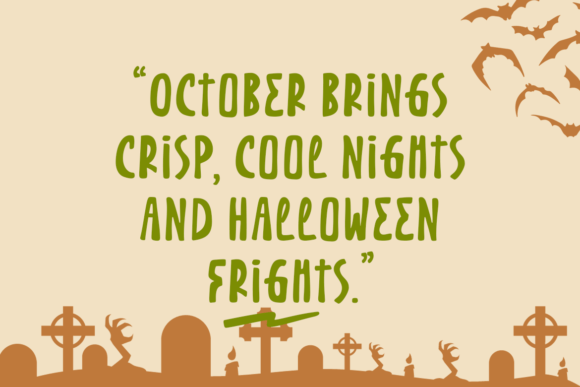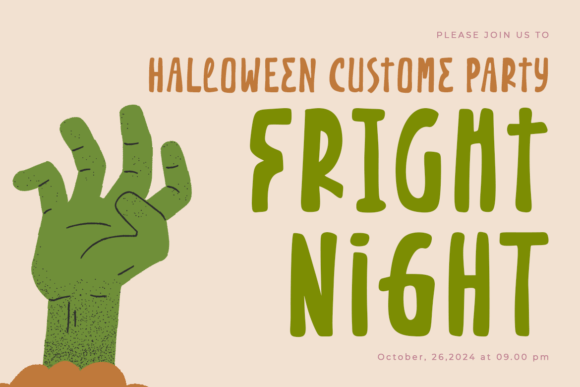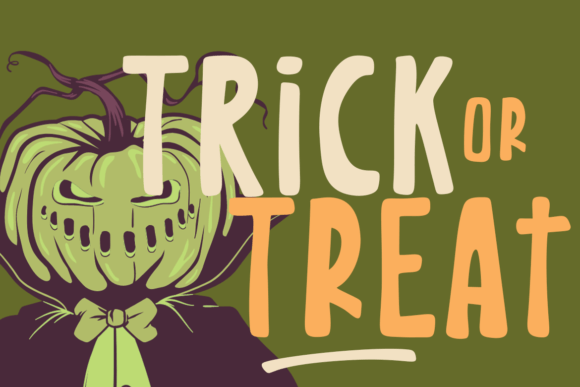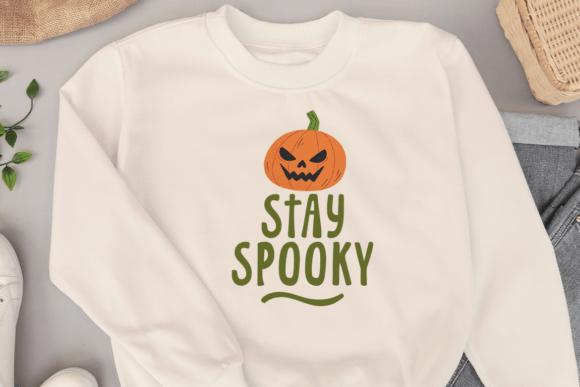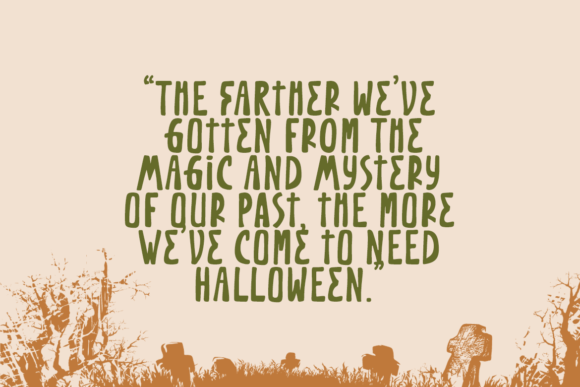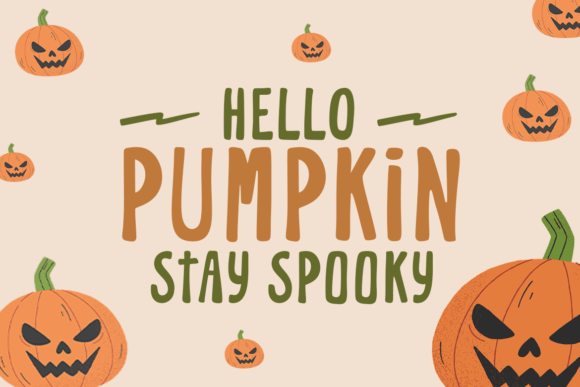
Unleash the Spookiness: Exploring the Afterlife Attack Font
In the realm of typography, there exist fonts that are mere mortals, and then there are those that transcend the ordinary, speaking directly to our souls. The Afterlife Attack font is one such extraordinary creation that embodies the essence of the spooky and unknown, making it a fascinating addition to any designer’s arsenal. In this article, we’ll embark on a journey to unravel the mystique of the Afterlife Attack font, exploring its unique characteristics, and how it can elevate your designs to new heights.
The Essence of Afterlife Attack
Afterlife Attack is an incredibly unique and interesting display font that exudes an aura of mystery and intrigue. Its design is deeply rooted in the themes of the afterlife, evoking a sense of eeriness and otherworldliness. Each letterform is carefully crafted to transport you to a realm beyond the mortal coil, making it perfect for projects that require a touch of the macabre or supernatural.
What Makes Afterlife Attack Stand Out?
- Unique Letterforms: The font boasts letterforms that are not just characters but pieces of art. Each one is designed to contribute to the overall spooky and somewhat creepy aesthetic, ensuring your designs stand out in a crowd.
- Versatility: Despite its niche theme, the Afterlife Attack font is surprisingly versatile. It can be used for a wide range of projects, from Halloween-themed decorations and party invitations to more permanent applications like tattoos and apparel.
- Legibility: One of the remarkable features of the Afterlife Attack font is its legibility, even in larger sizes. This makes it an excellent choice for headlines, posters, and any design where impact and readability are key.
Applications of Afterlife Attack
The Afterlife Attack font is not just limited to Halloween or horror-themed projects. Its distinctive style can be applied to various creative endeavors, including:
- Graphic Design: Use it for brochures, posters, and flyers that need a unique touch.
- Digital Art: Add a layer of complexity and intrigue to your digital artworks.
- Fashion Design: Incorporate it into your textile designs for clothing and accessories.
- Crafting: Perfect for scrapbooking, card making, and other paper crafts.
Tips for Using Afterlife Attack
To make the most out of the Afterlife Attack font, consider the following tips:
- Pair it with Simplicity: Balance the complexity of the font with simpler elements to avoid overwhelming the viewer.
- Experiment with Colors: While the font itself is quite bold, playing with different colors can enhance its effect.
- Consider the Context: Ensure that the use of the font aligns with the message or theme of your project.
| Font Name | Afterlife Attack Font |
| Author | Masa Aska Sanurumi |
The Afterlife Attack font is a powerful tool for designers and crafters looking to infuse their projects with a sense of mystery and intrigue. Its unique design, versatility, and legibility make it an excellent choice for a wide range of applications. Whether you’re working on a spooky Halloween project or simply looking to add a touch of the extraordinary to your designs, the Afterlife Attack font is sure to leave a lasting impression.
So, why settle for ordinary when you can create something truly spectacular? Dive into the world of Afterlife Attack, and let your creativity transcend the boundaries of the mundane.